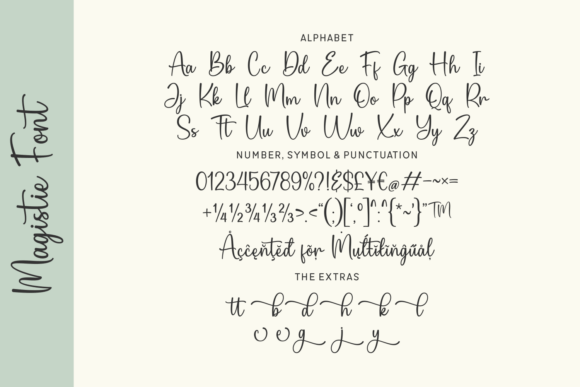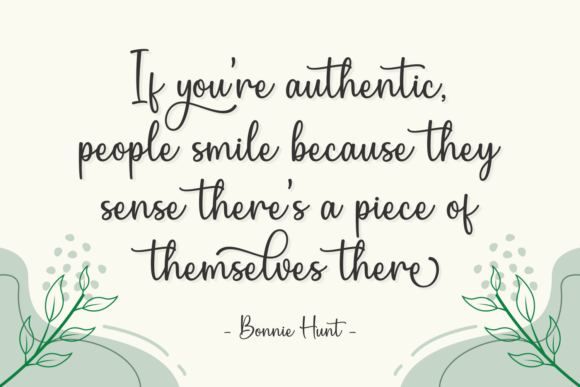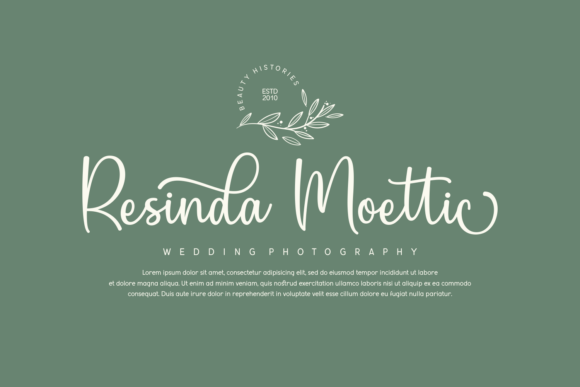
Introduction to Magistie Font
Magistie is a lovely script font that features elegant, flowing letters.
It’s perfect for adding a stylish touch to invitations, greeting cards, or any design where you want a beautiful handwritten feel The letters are graceful and easy to read, making it a great choice for both formal and casual projects.
Key Features of Magistie Font
Why Choose Magistie Font?
Magistie Font offers exceptional quality and versatility, making it a valuable addition to your design toolkit. Whether you’re creating for personal projects or commercial use, Magistie Font delivers professional results.